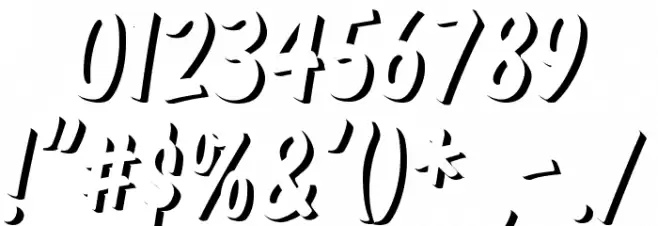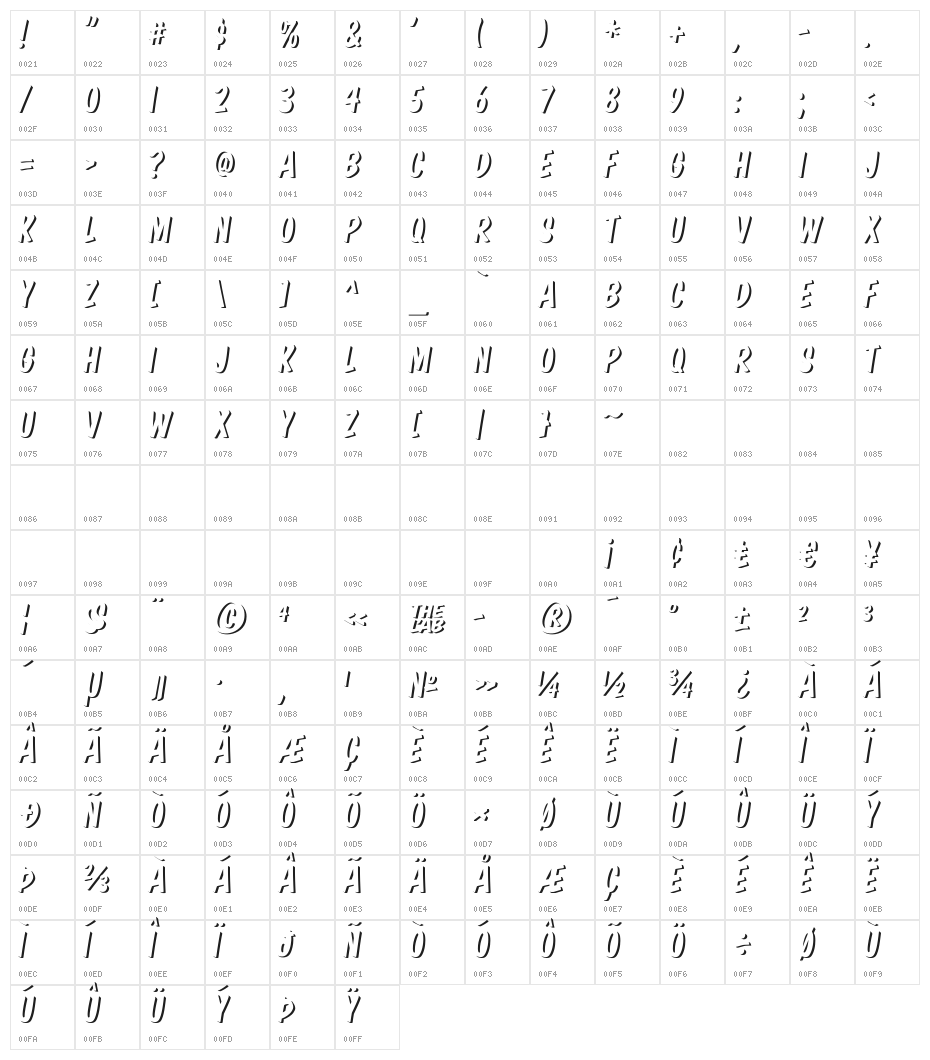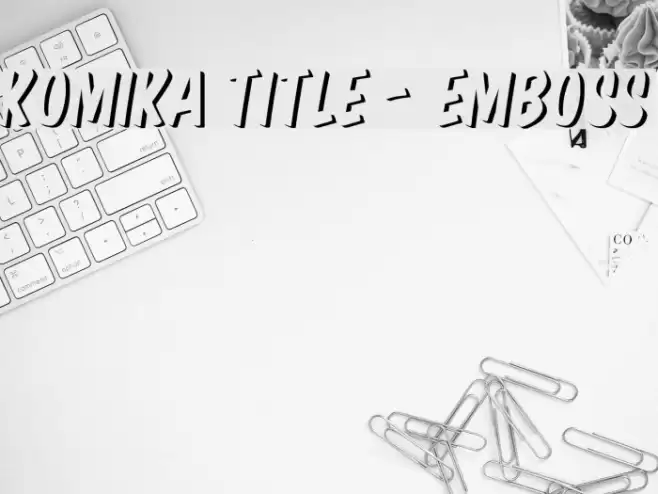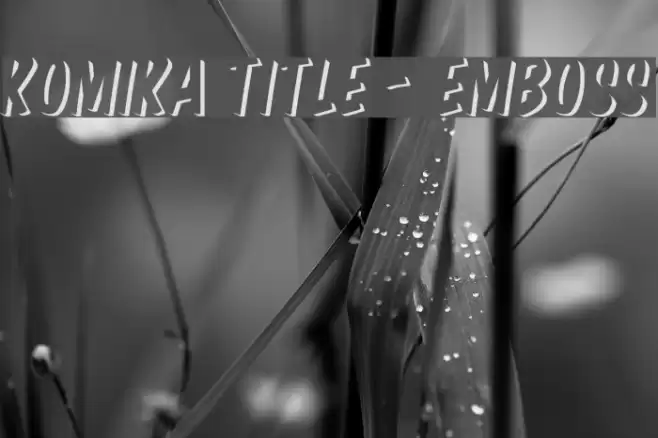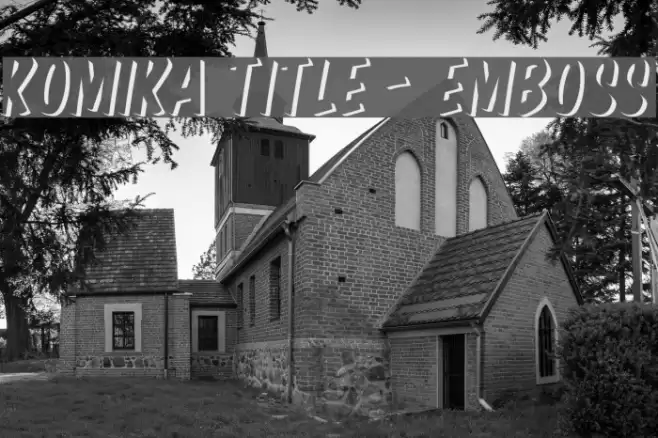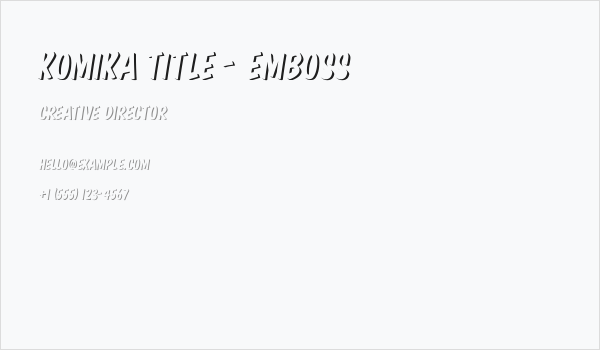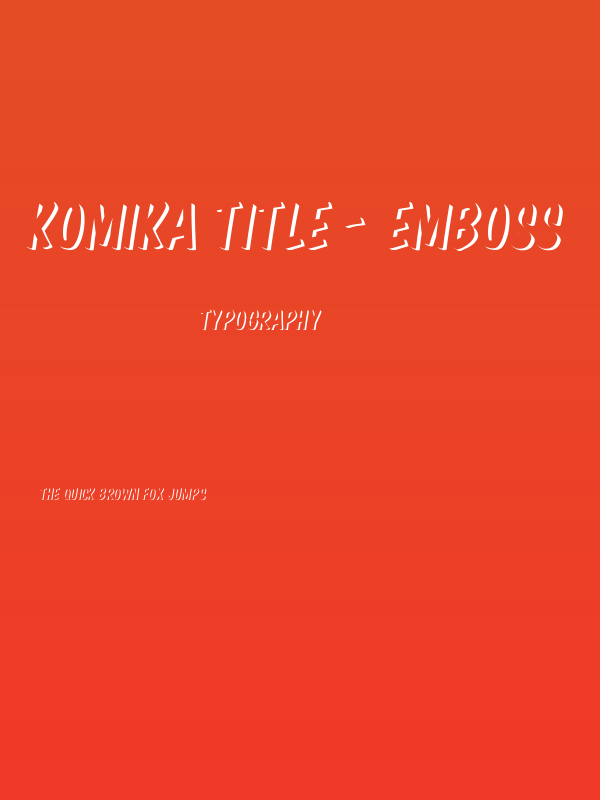
Komika Title - Emboss Font
Komika Title - Emboss Description
This font features a bold, dynamic style with a three-dimensional embossed effect that gives it a striking appearance. The characters are uppercase and lowercase alphabets, along with numbers and a selection of special characters. Each letter has a shadow effect that enhances its depth and visual impact, making it stand out prominently. The strokes are thick and consistent, contributing to a strong and confident look. The font's playful and energetic vibe makes it suitable for creative and eye-catching designs.
| Proposed Projects | Ideal for comic book titles, posters, advertisements, and any project requiring a bold, eye-catching typeface. |